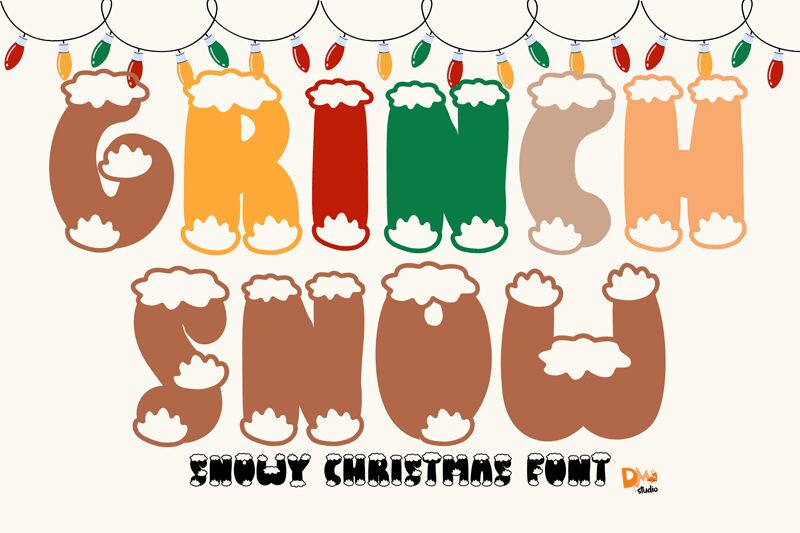
Grinch Snow font by DM Letter Studio - Dimas Prasetyo is a free holiday font with a snowy vibe. Its unique sculptural shape is inspired by the art of carving on stone or wood, which taken to digital form comes off as an intriguing interplay of character contours. The friendly sans serif letterforms are vivid and mature, much like many popular contemporary fonts.
Use Grinch Snow for designing magazine covers, flyers, brochures, posters, book covers, business cards, product packaging, and video covers. It can even be used for non-commercial logo designs and branding.